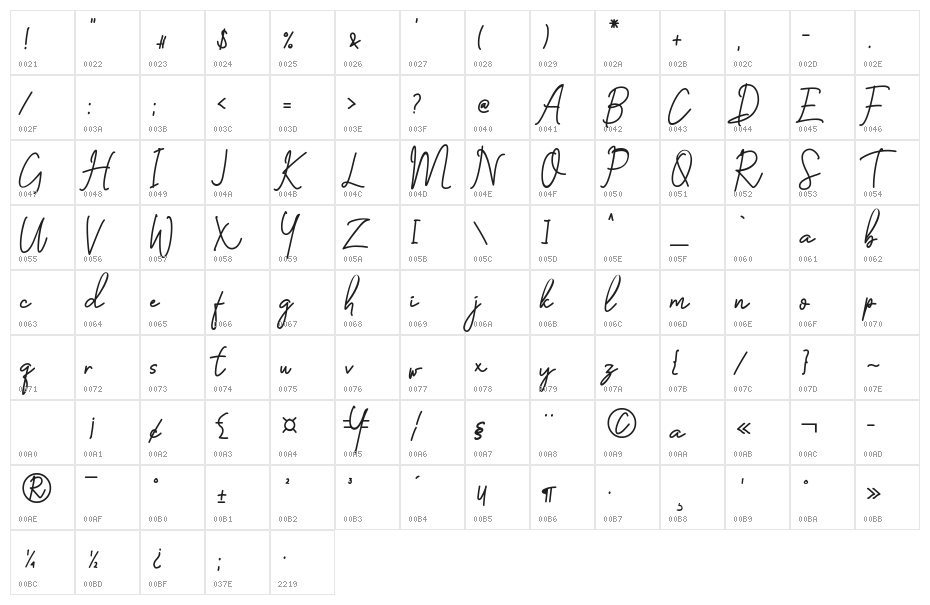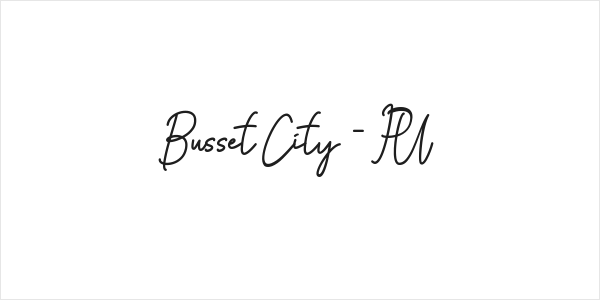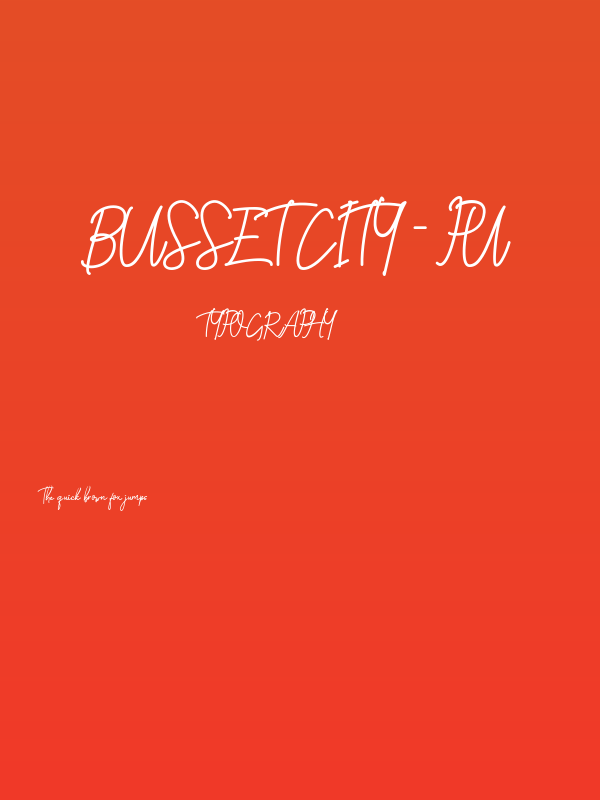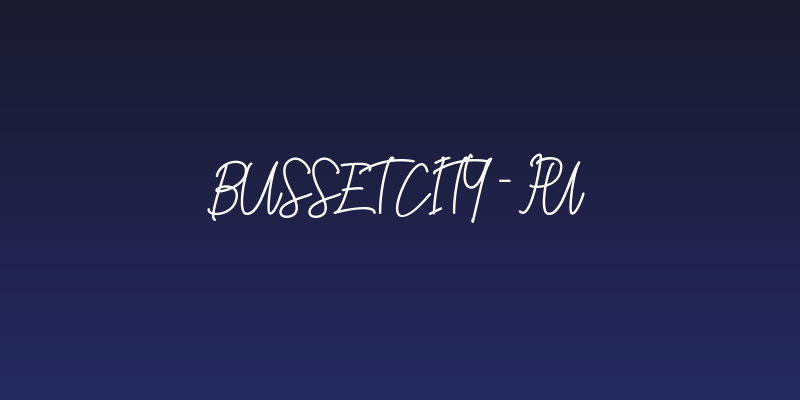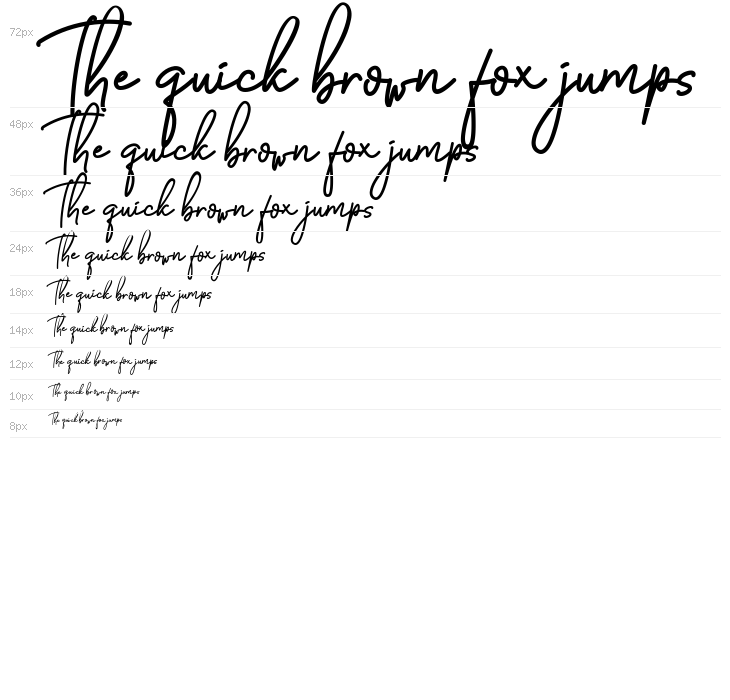
Busset City - PU Font
Busset City - PU Description
This font features a lively and dynamic handwritten style, characterized by its fluid and continuous strokes. The uppercase letters exhibit a playful and slightly exaggerated slant, while the lowercase letters maintain a more consistent flow, adding to the overall casual and approachable feel. The characters are well-spaced, allowing for readability despite the script-like nature. The font's unique personality is further enhanced by its irregularities, giving it an authentic, hand-crafted appearance. It includes a full set of uppercase and lowercase letters, numerals, and a variety of punctuation marks, making it versatile for various design needs.